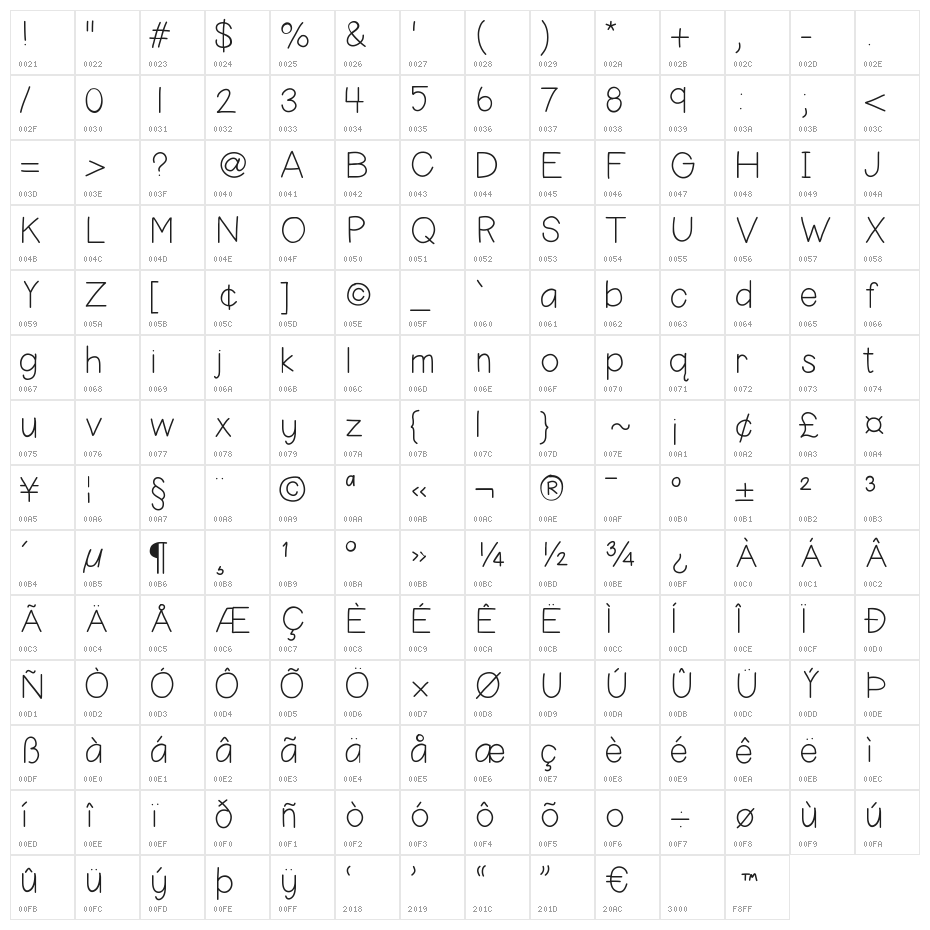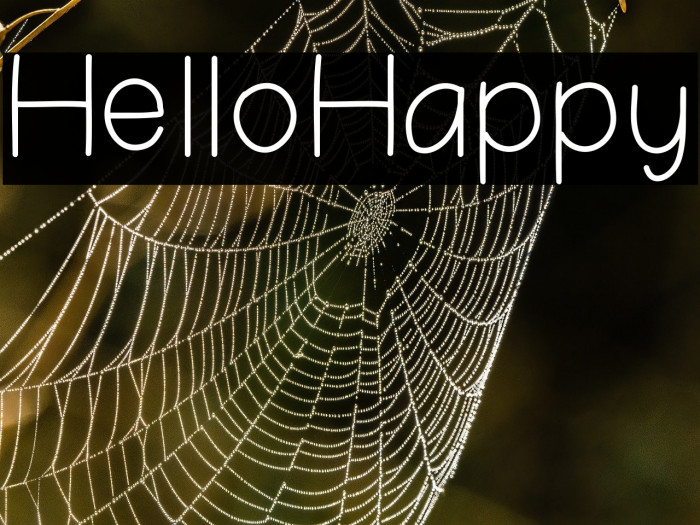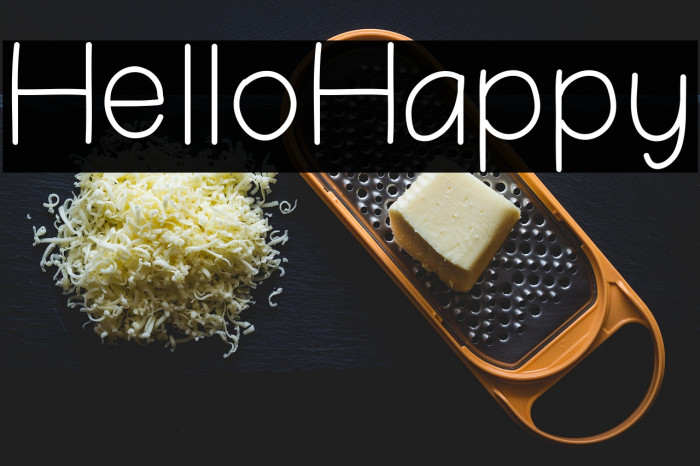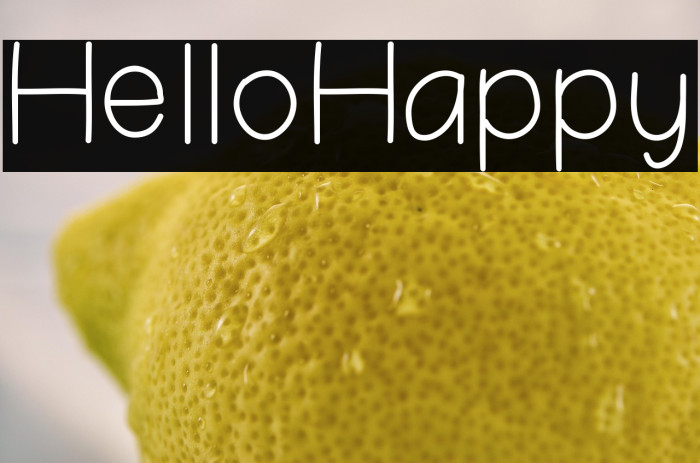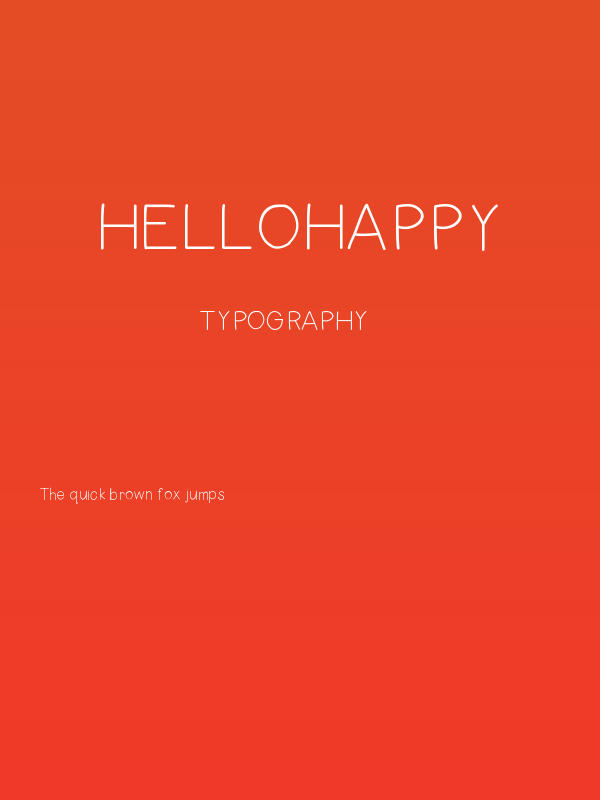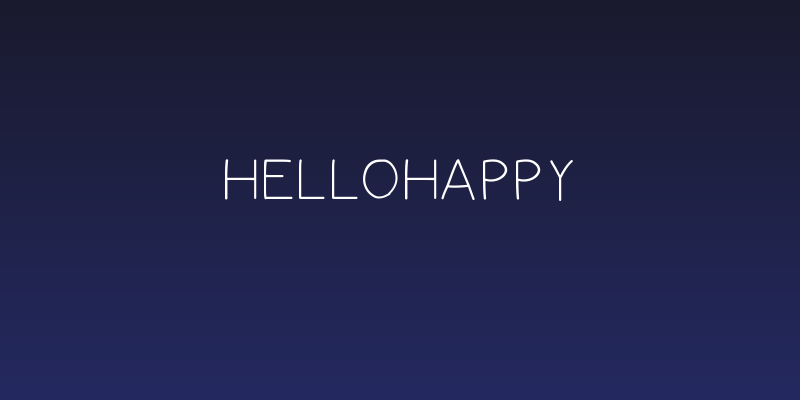
HelloHappy Font
HelloHappy Description
This font features a playful and friendly design, characterized by its rounded and smooth letterforms. The uppercase and lowercase letters maintain a consistent height, creating a harmonious appearance. The numerals are clear and easy to read, with a slightly whimsical touch that matches the overall style. Special characters are well-integrated, maintaining the font's approachable and informal feel. The strokes are uniform in thickness, contributing to a clean and modern look. This font is versatile, suitable for both digital and print media, and can add a touch of warmth and personality to any project.
| Use Case | Headlines, Logos, Informal Text |
| Proposed Projects | Ideal for children's books, playful branding, greeting cards, and informal digital content. |